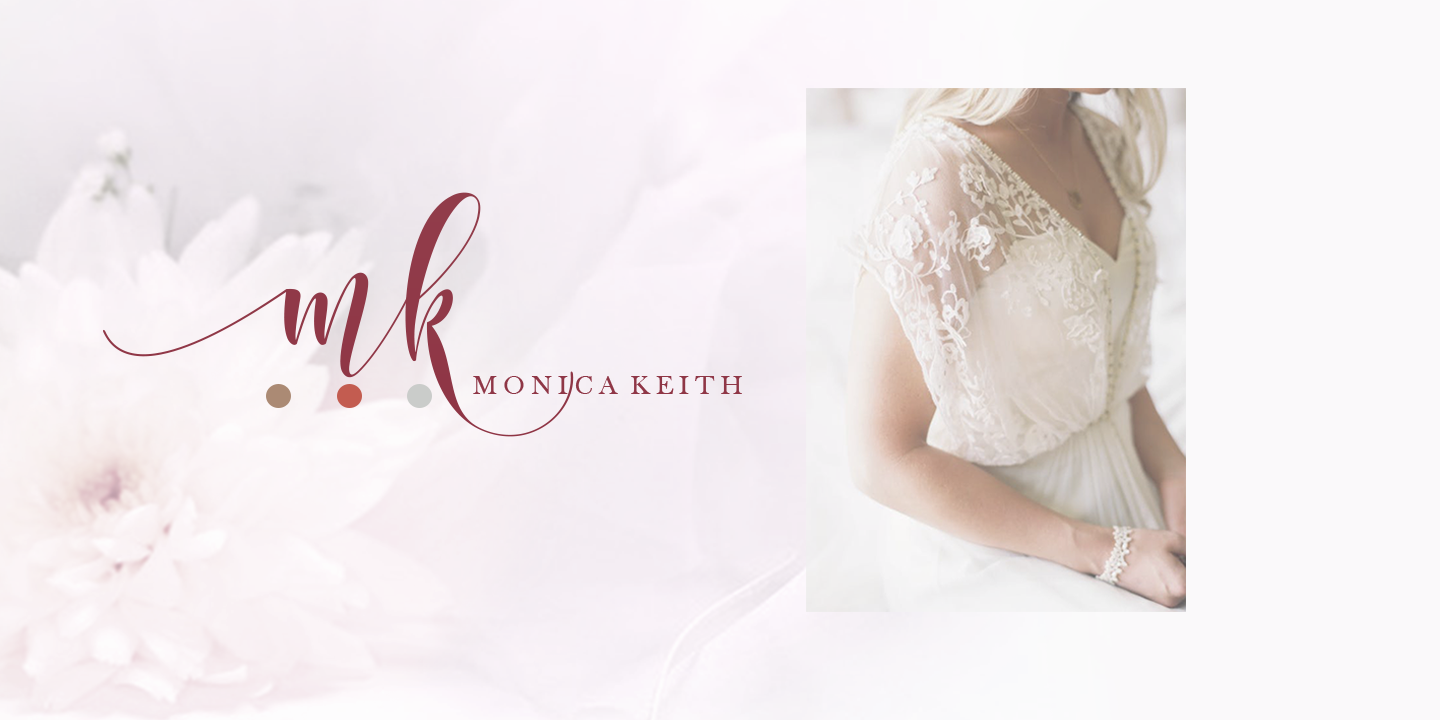
The Still Shine Font Free Download is ideal for wedding invitations, boutique branding, social media graphics, and product packaging, offering a chic, handwritten elegance.
This font is exciting because its flowing, script-style design adds a personal, luxurious touch, making any project feel unique and heartfelt.
The Still Shine family includes Regular, Bold, and Swash variants, providing flexibility for creative typography needs.
Transform your designs with the Still Shine Font Free Download, a typeface that radiates sophistication and charm. Perfect for crafting romantic headlines or elegant logos, this font’s smooth, calligraphic strokes bring warmth and personality to your work. Its versatility makes it a favorite for designers creating everything from wedding suites to high-end retail branding. The Still Shine ensures crisp rendering across digital platforms and print, making it a reliable choice for modern aesthetics. With 2025 design trends favoring authentic, handcrafted typography, downloading Still Shine Font Free Download keeps you ahead in creating visually stunning content. Test it now to see its transformative impact, and consider purchasing for commercial use to fully unlock its potential in your next creative endeavor.